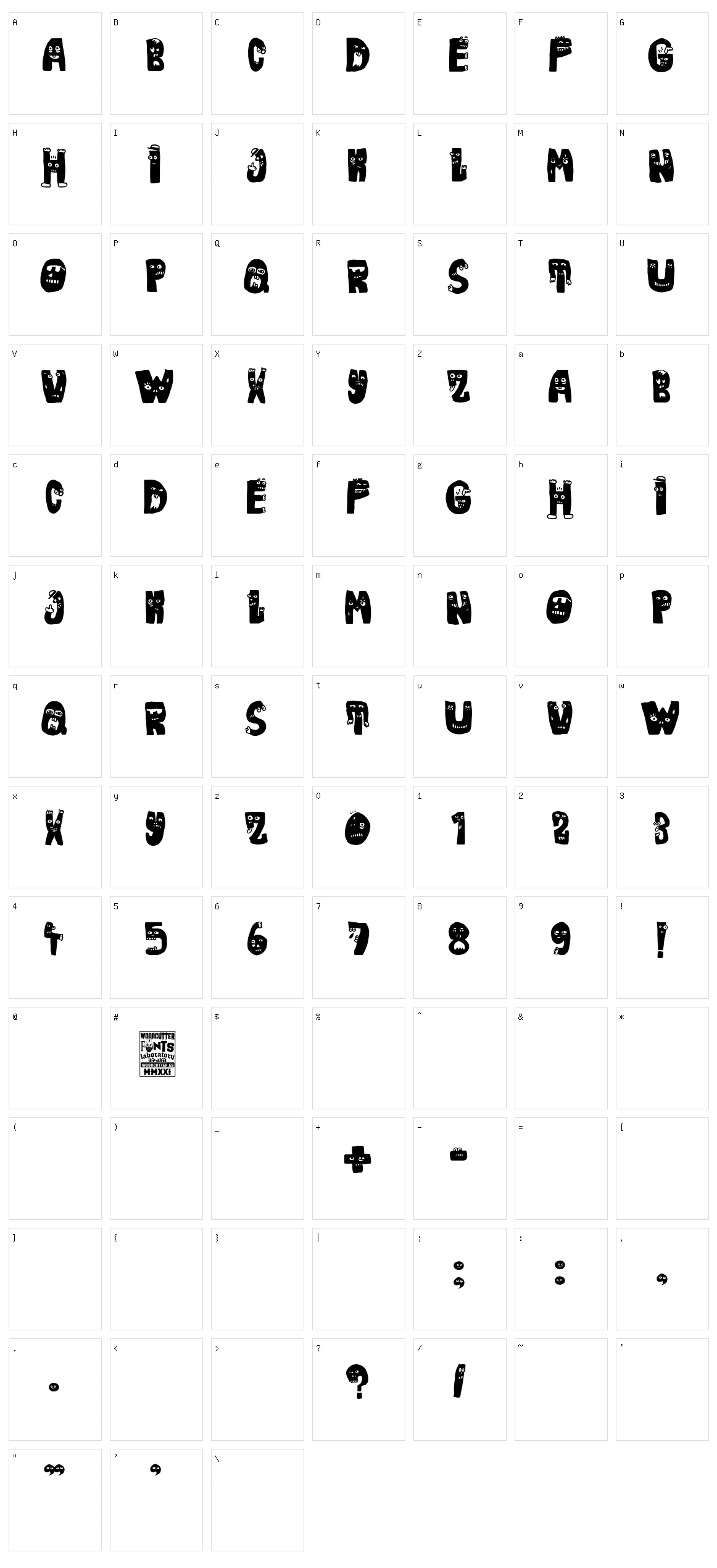
The free font Hello Madre! is carefully designed by Woodcutter, showcasing a thoughtful balance of creativity and usability and falls under the Cartoon font style. When you download the ZIP file, it contains only 93.47 KB of font files, making it lightweight and quick to download. Please review the license details below to understand permitted usage and distribution rights. If license information is not available, we recommend using this font for personal projects only or contacting the author directly for commercial usage permissions.